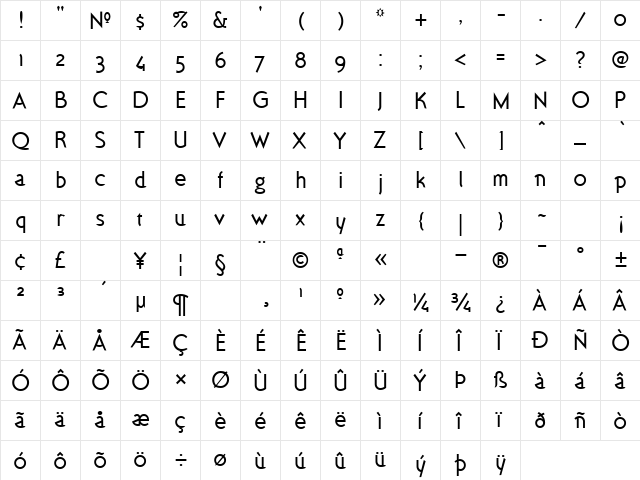
Ottomat Regular
Design Context for Ottomat Typeface
Ottomat offers clean, dependable letterforms without strong stylistic allegiance, making it a practical choice for designers who need flexibility.